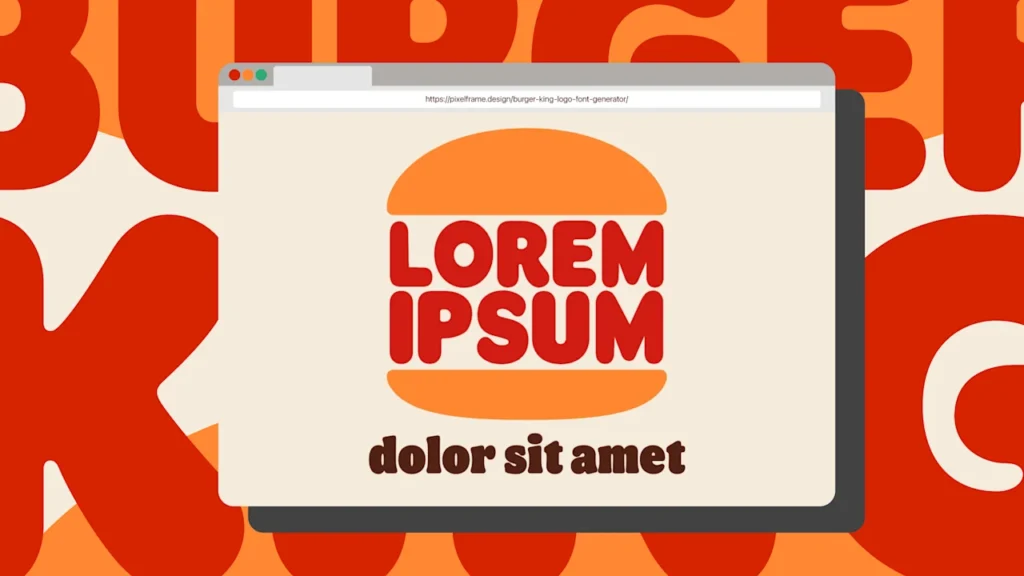
Burger King’s slogans have long emphasized personalization, like “Have It Your Way” and “Your Rule.” Now there’s a text generator that lets you personalize its logo, too.
A new Burger King logo font generator lets users customize the red, rounded letters that sit between the logo’s burnt-orange-colored buns. It’s by Pixel Frame, a website that makes album cover and logo text generators for everything from Drake’s discography to Dragon Ball Z and Donkey Kong.
Just a few words will render big and bold in the logo generator, but the text will become increasingly squished and stacked as you add more text, with one line stacked on top of the other like hot-off-the-grill patties between the buns.
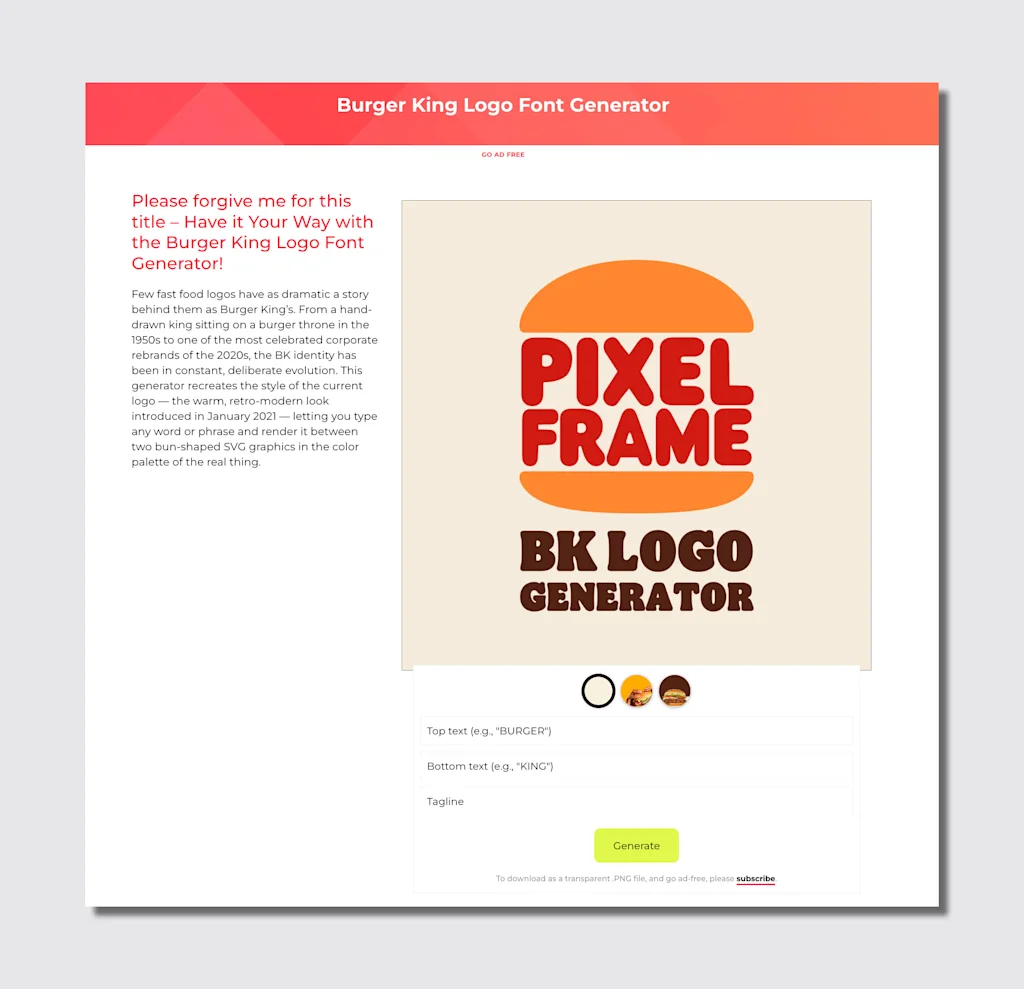
There are customization options as well. You can add a custom tagline below the logo, generate your text as a wordmark on a plain tan background, or set it in a pair of promotional-style graphics for the Whopper, the burger chain’s signature sandwich.
In a Reddit thread, users shared mock-ups of their own creations, like “Are you the child of divorce?,” “Are we the monsters?,” and “Our patties are circles.”
Burger King introduced its current logo in 2021 as part of a rebrand by Jones Knowles Ritchie that modernized the brand’s original 1969 logo, and the burger chain has since followed it up with marketing efforts aimed at bringing customers back. It’s paying off at a time when other fast-food chains are under pressure due to rising inflation and labor costs pushing up prices and depressing sales.
Burger King’s rebrand has helped it reposition itself in the fast-food landscape. Where industry leader McDonald’s is known for its iconic Golden Arches—the Nike Swoosh of fast-food logos—and Wendy’s, the No. 2 burger chain in the U.S. by sales, is best known for its character-led, modernized heritage brand, Burger King takes a more literal approach.
Burger King’s refreshed visual identity made the burger central to the logo again. It uses colors inspired by the Whopper and a squishy font that evokes the food itself. It also reins in the typography of the original logo and gives its top bun a little more volume. The rebrand fits into the company’s broader strategy of evoking Burger King’s ingredients, as its marketing is focused in large part on elevating its core menu.